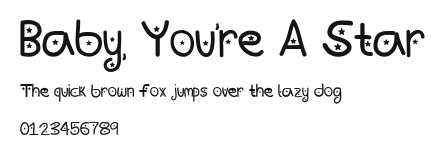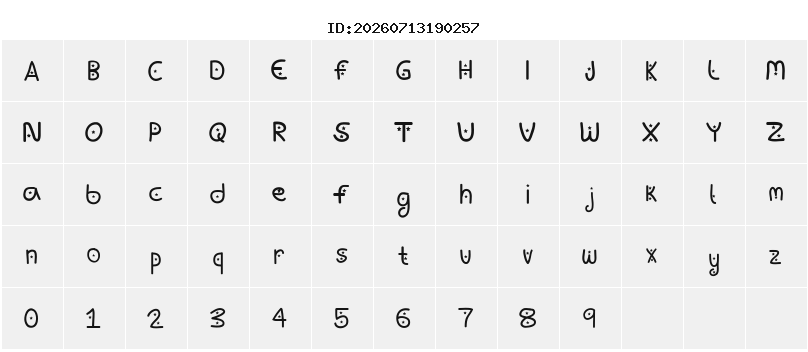
• Font Name: Baby, You're A Star
• Full Font Name: Baby, You're A Star
About Baby, You're A Star.ttf
Baby, You're A Star.ttf is a modern, elegant sans-serif font designed for ultimate readability and visual harmony. Perfect for branding, headlines, web design, and print materials.